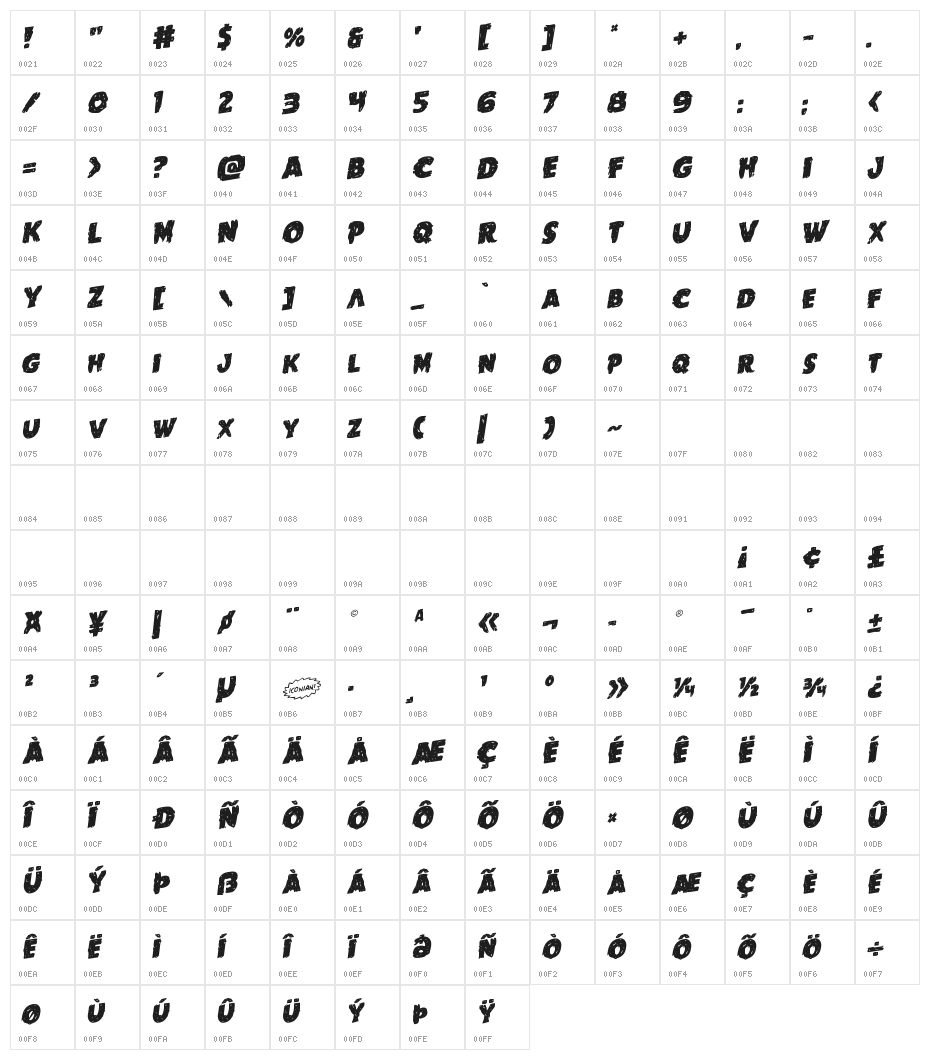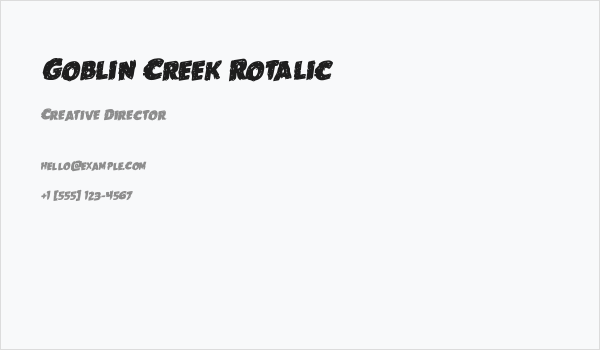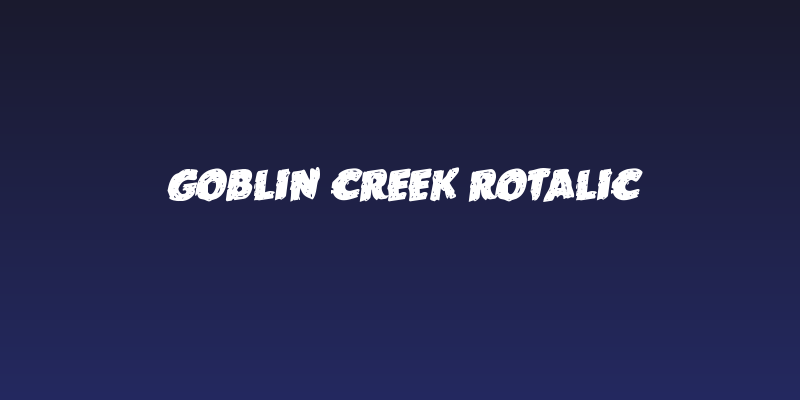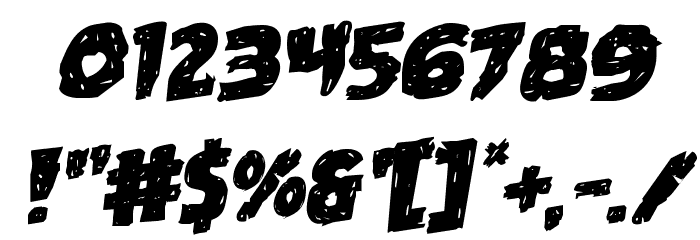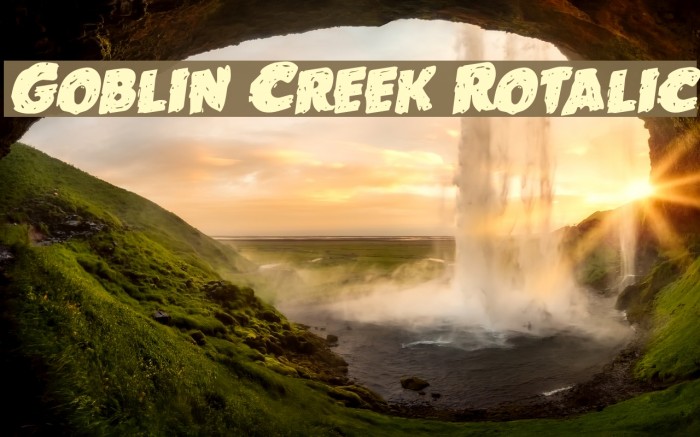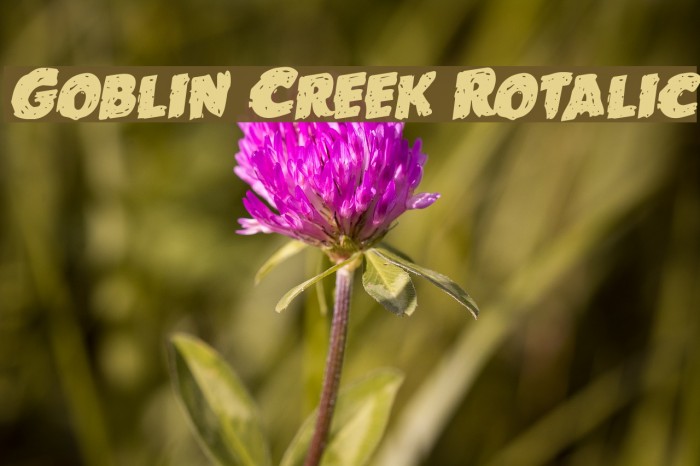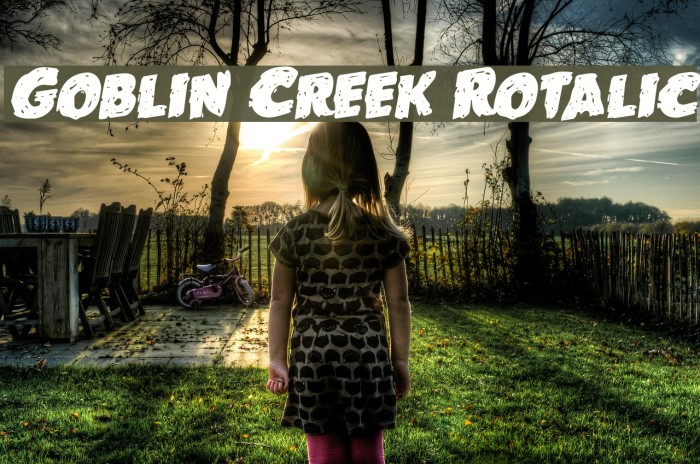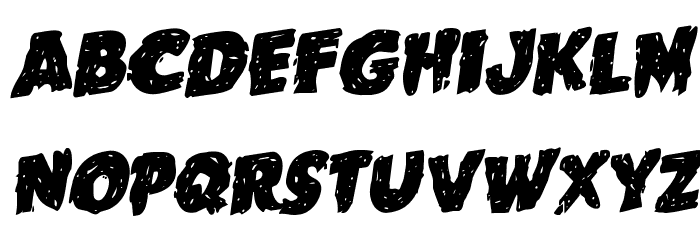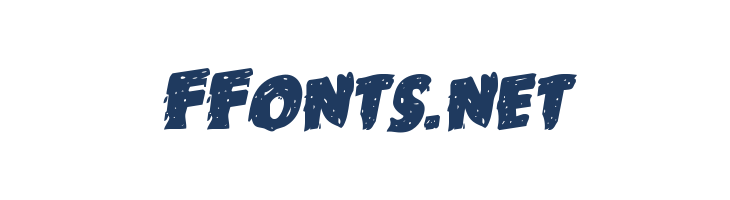
Goblin Creek Rotalic Font
Goblin Creek Rotalic Description
This font features a bold and dynamic style with a playful, slightly chaotic appearance. The letters are heavily stylized with irregular edges and a textured, almost distressed look, giving it a unique and eye-catching character. The uppercase and lowercase letters maintain a consistent design, with each character exhibiting a sense of movement and energy. The numbers and special characters follow the same aesthetic, ensuring a cohesive look across all elements. This font is ideal for projects that require a bold statement and a touch of whimsy.
| Proposed Projects | Great for Halloween-themed designs, comic book titles, posters, and any project needing a bold, playful touch. |